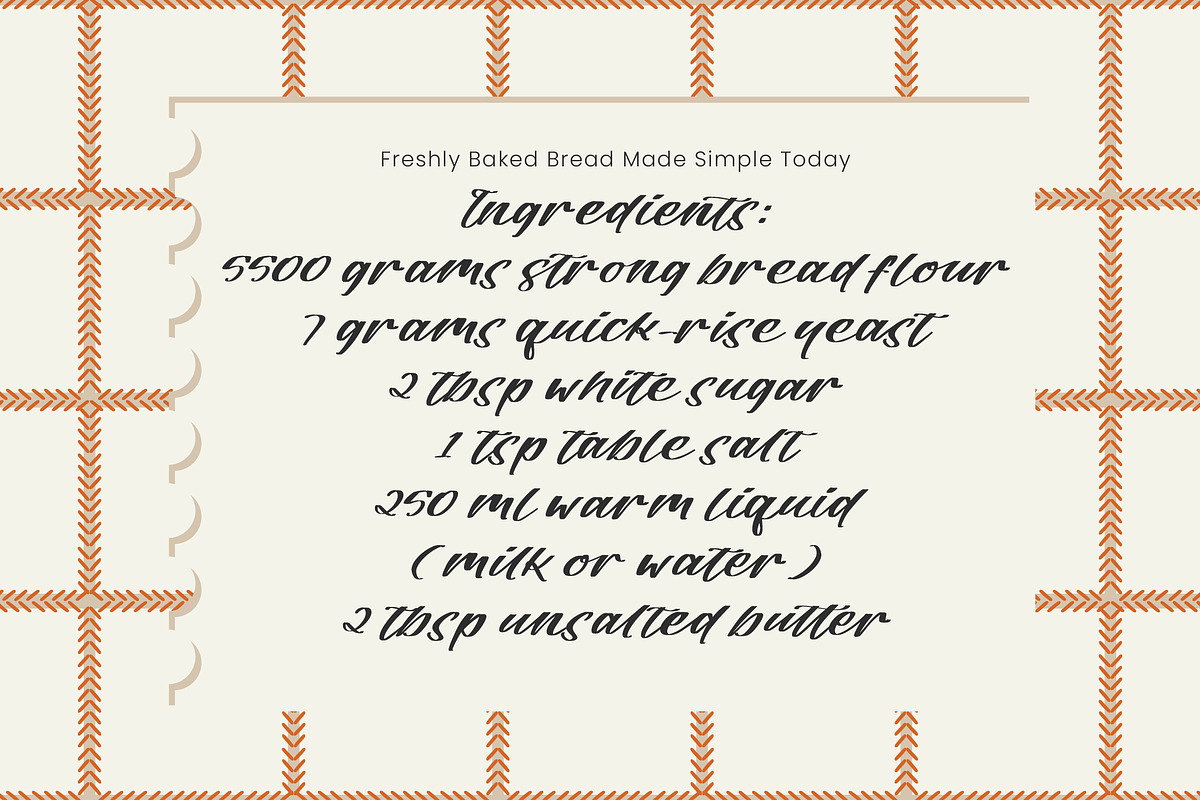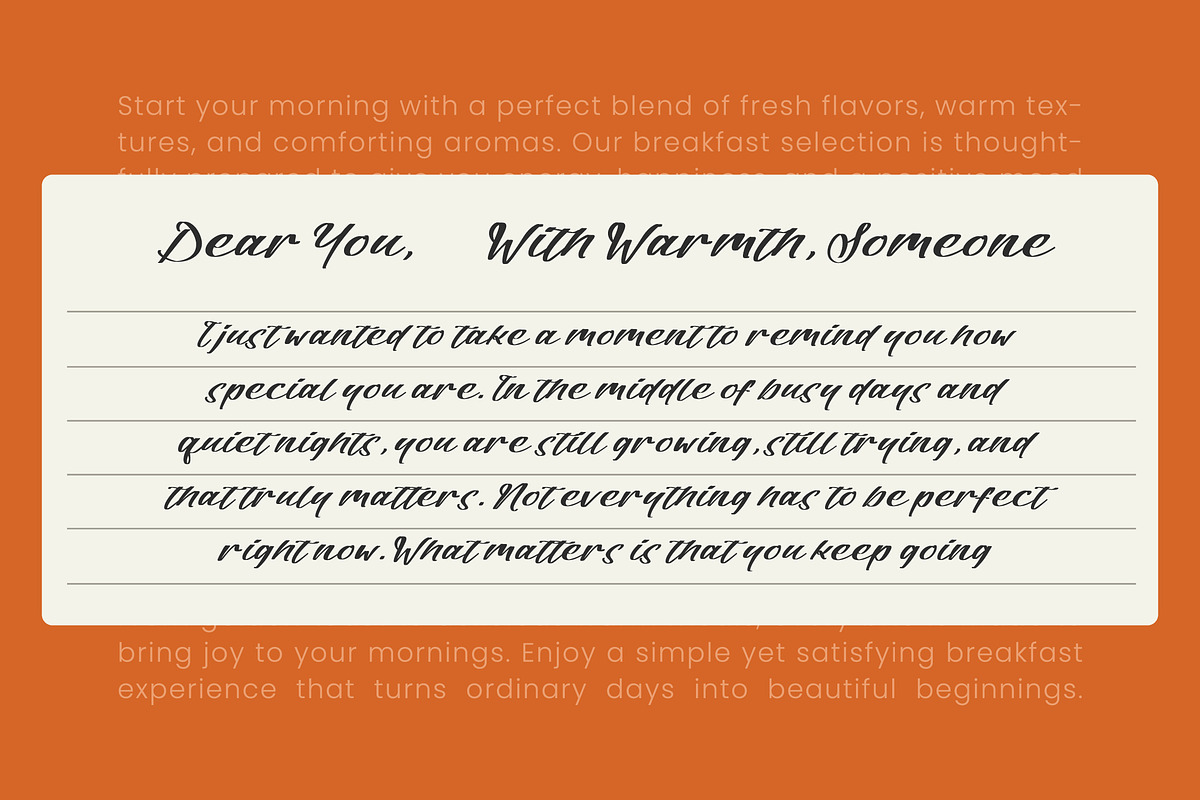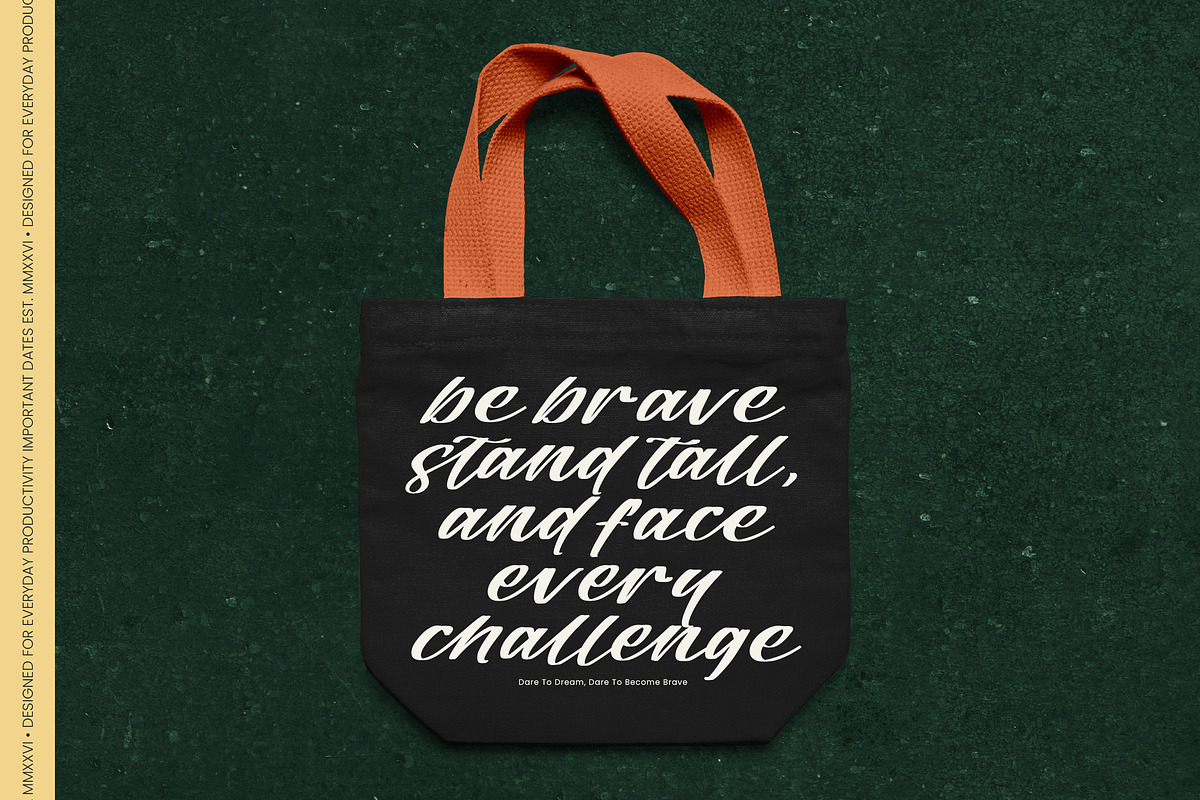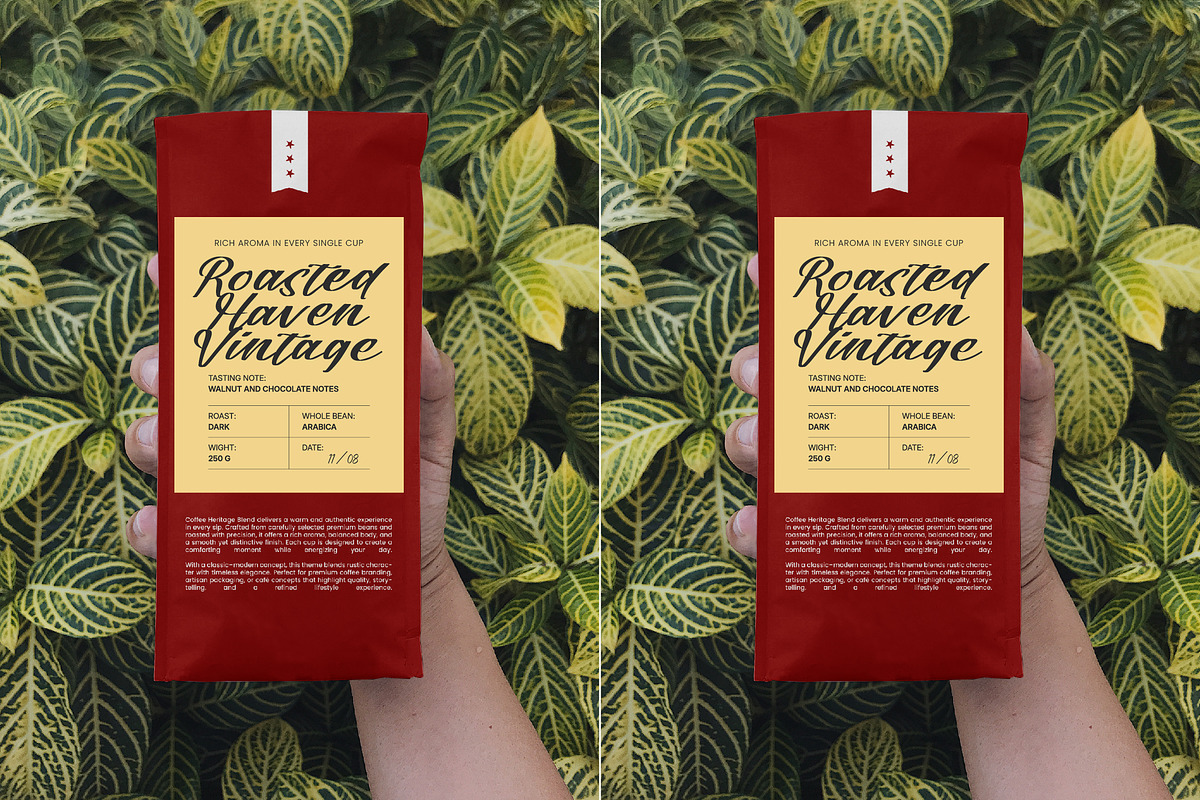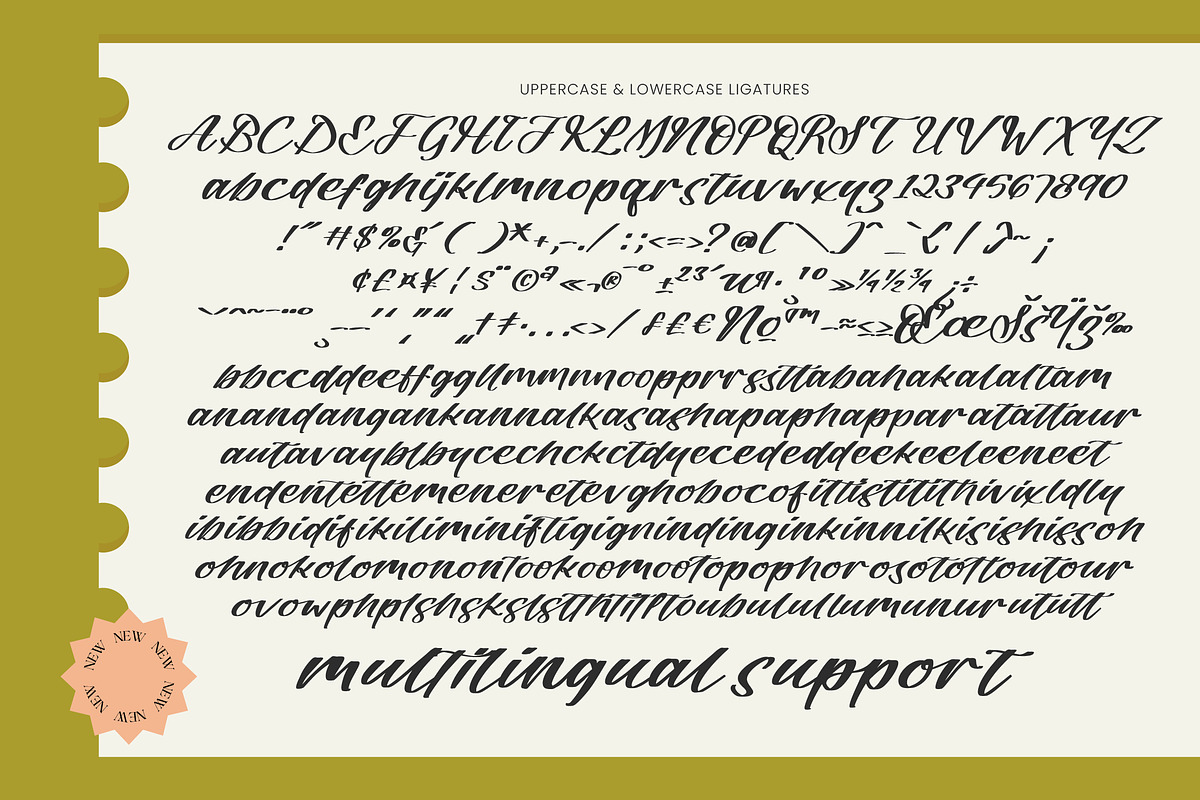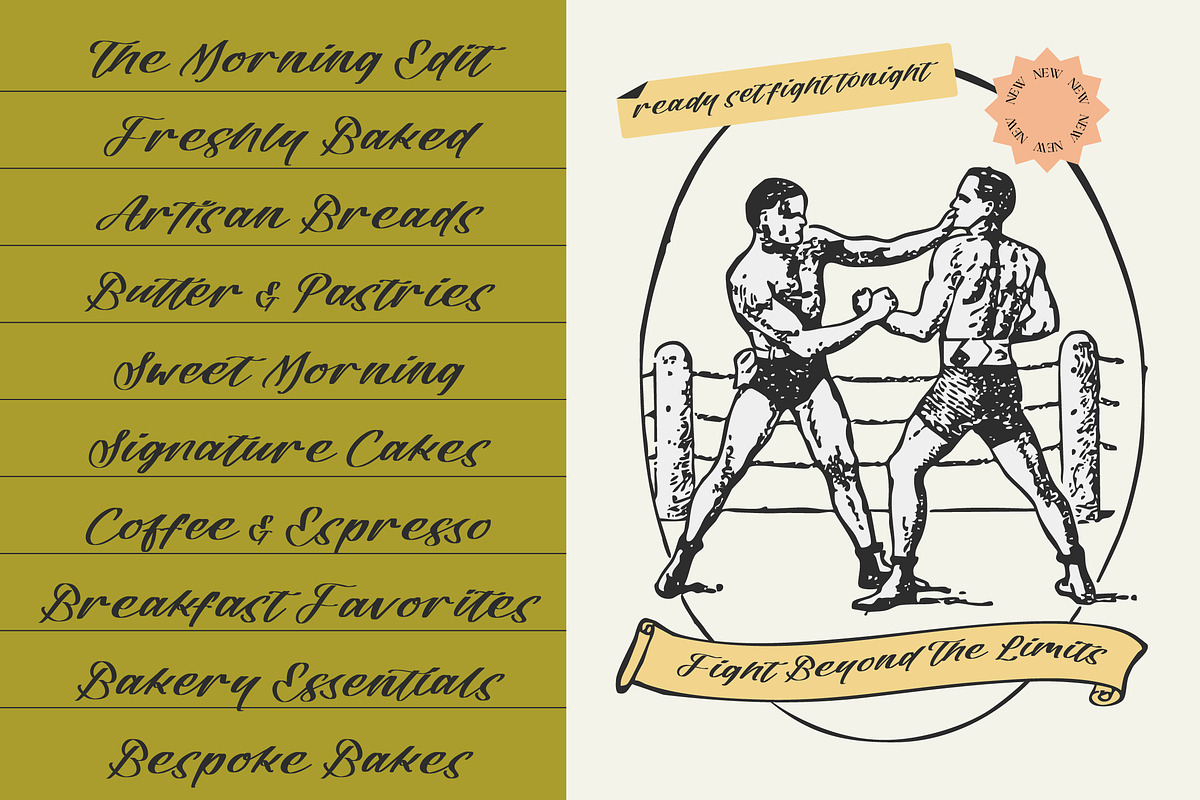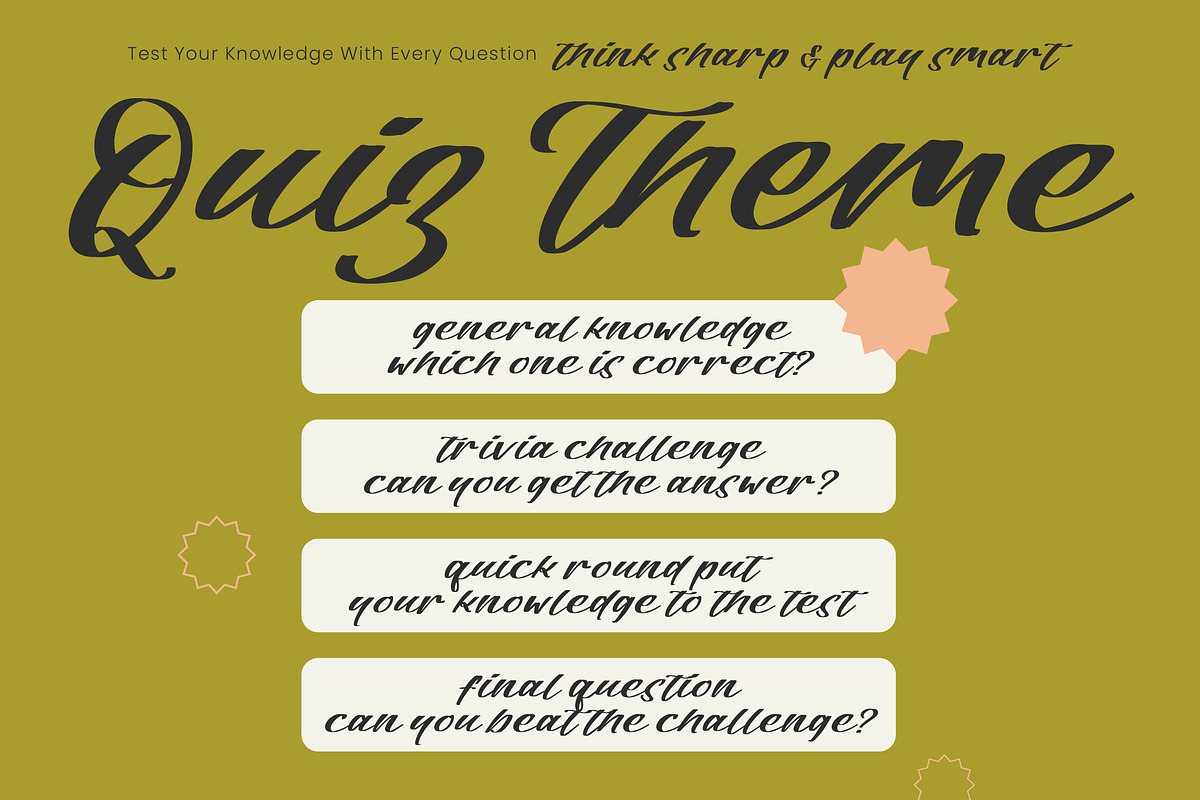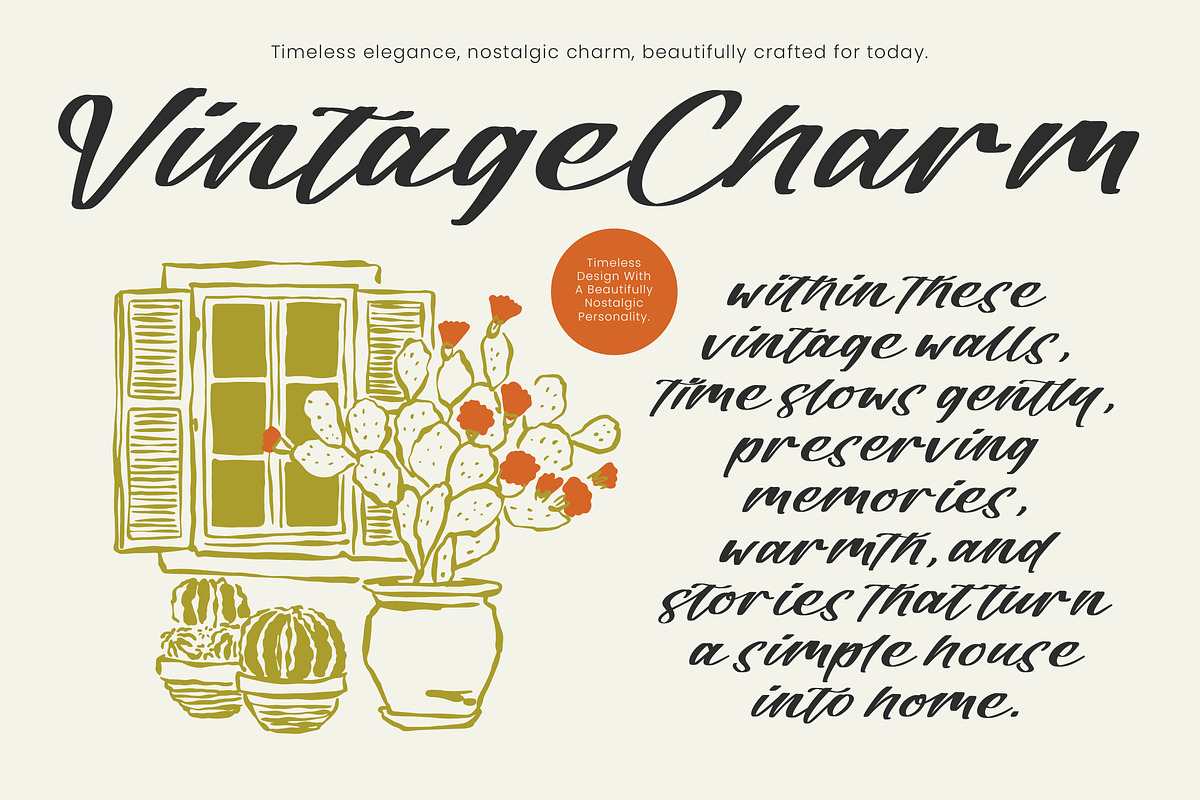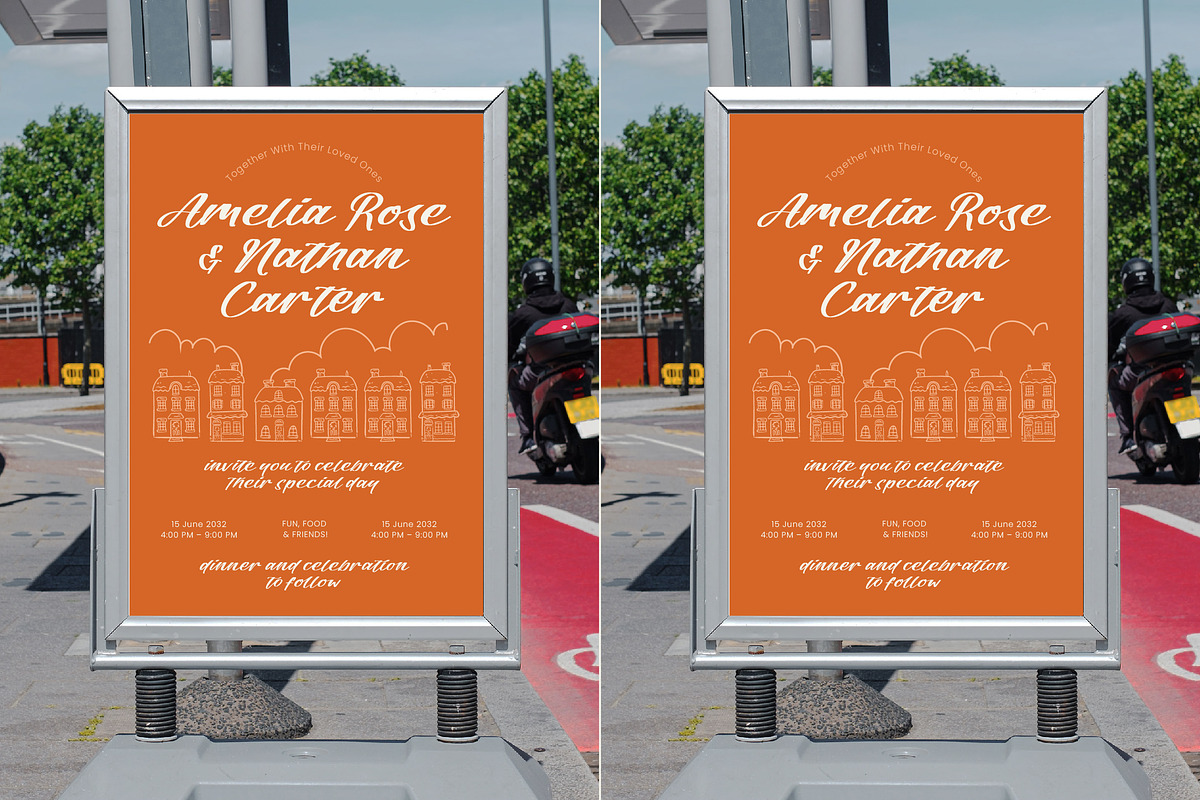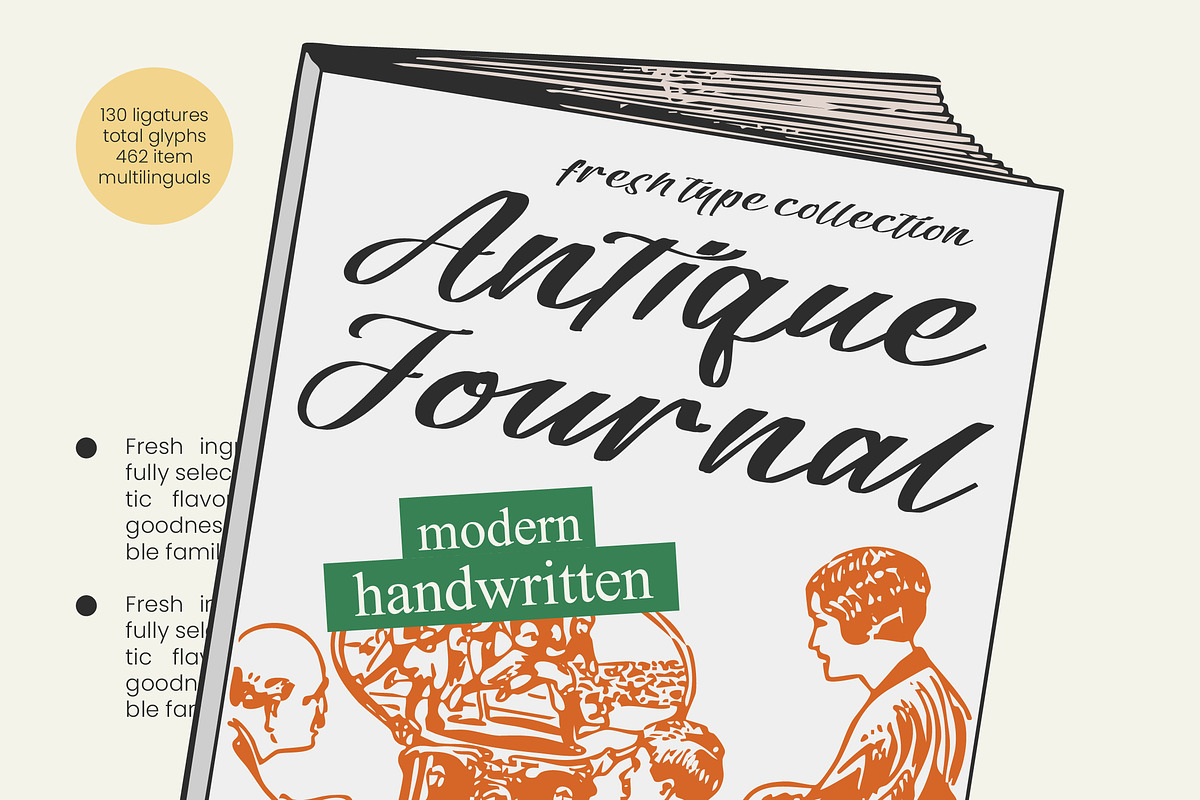
Antique Journal Modern Handwritten
Antique Journal - Modern Handwritten , Elevate your creative projects with the timeless elegance of Antique Journal - Modern Handwritten. This exquisite typeface masterfully blends vintage calligraphy with a contemporary aesthetic, offering a sophisticated look that resonates with discerning audiences. Its fluid strokes and high-contrast design capture the essence of a personalized signature, ensuring your headers and titles exude an aura of exclusive craftsmanship and high-end style.
Unleash unparalleled creativity using the comprehensive features integrated within Antique Journal - Modern Handwritten. Boasting an impressive collection of 130 ligatures and 462 total glyphs, this font provides the organic flow and natural rhythm of authentic handwriting. The hand-drawn texture and graceful curves make it an essential tool for designers seeking to add a personal touch to their digital and print media, ensuring every character feels unique and intentional.
Expand your reach effortlessly with a typeface designed for the modern, interconnected world. With its extensive multilingual support, Antique Journal - Modern Handwritten adapts seamlessly across global markets, making it incredibly versatile for international projects. Whether you are targeting a local boutique or a multinational audience, this dynamic script font ensures your message remains legible and stylish in a wide array of languages, reinforcing your brand consistency worldwide.
Transform your visual identity by utilizing Antique Journal - Modern Handwritten for your most prestigious assignments. This font is perfect for luxury branding, packaging design, and editorial layouts where a touch of refinement is paramount. It is the ideal choice for social media graphics, wedding invitations, and high-fashion magazines. By incorporating Antique Journal - Modern Handwritten, you secure a distinctive visual edge that elevates your work from standard to extraordinary, making it a must-have for any professional typography toolkit.